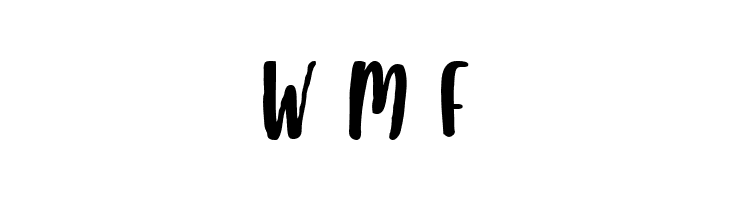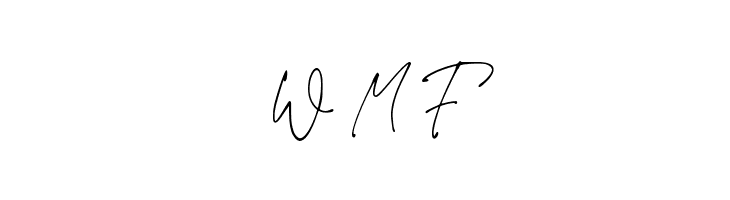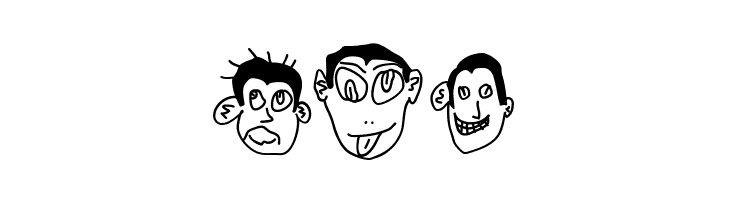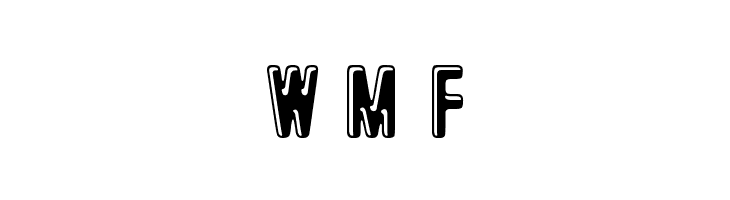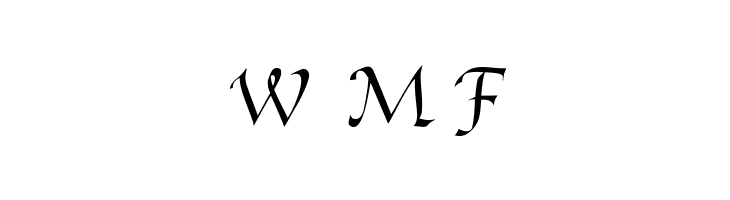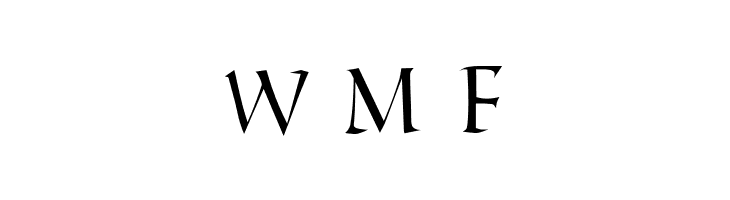
Icon-based decorative font with housing and lifestyle motifs.
A playful and elegant handwritten font with smooth, flowing lines.
A geometric, futuristic font with a grid-like, angular design.
A bold, geometric stencil font with angular, fragmented strokes.
A bold, hand-drawn font with a textured, doodle-like pattern.
A modern, geometric sans-serif font with clean lines and a structured design.
Cartoonish, hand-drawn font made of expressive human head illustrations.
An anatomical dingbat font with detailed human body illustrations.
A classic, elegant serif font with a humanistic, calligraphic influence.
An elegant humanistic cursive font with dynamic serifs and flowing letterforms.
A bold, jagged font with a brush-like texture and dynamic style.
A bold, hand-drawn script font with a playful and dynamic style.
A traditional blackletter font with intricate, angular designs and a historic feel.
A bold, intricate Blackletter font with ornate and angular letterforms.
A bold, gothic-style font with intricate detailing and historical flair.
An ornate blackletter font with a medieval aesthetic.
Whimsical, animal-themed decorative font with bold circular enclosures.
A cursive, handwritten font with elegant, flowing strokes.
A dynamic and flowing script font with elegant curves and moderate contrast.
A bold, playful font with a hand-drawn, three-dimensional style.
A decorative, geometric font inspired by fictional runes, ideal for fantasy themes.
A bold, distressed font with a grunge texture and high contrast, ideal for impactful designs.
A lively and dynamic handwritten font with expressive strokes.
A bold, geometric font with a futuristic and edgy design.
Illustrative maritime-themed display font with boat and ship drawings.
A playful, handwritten font with uneven strokes and a casual, organic flow.
A bold, outlined font with a playful and modern aesthetic.
A bold, distressed font with a grunge aesthetic.